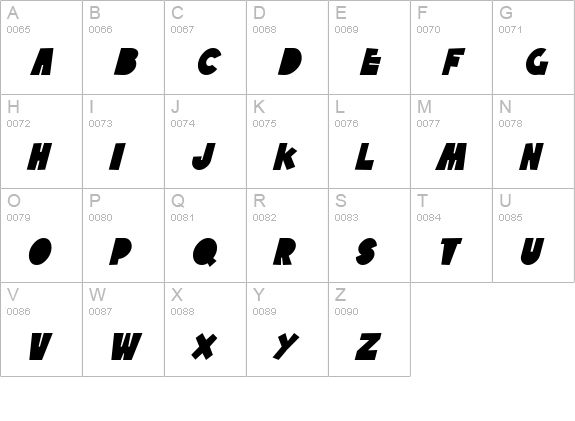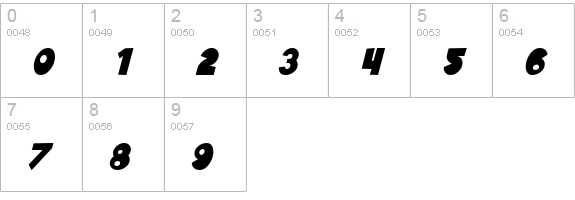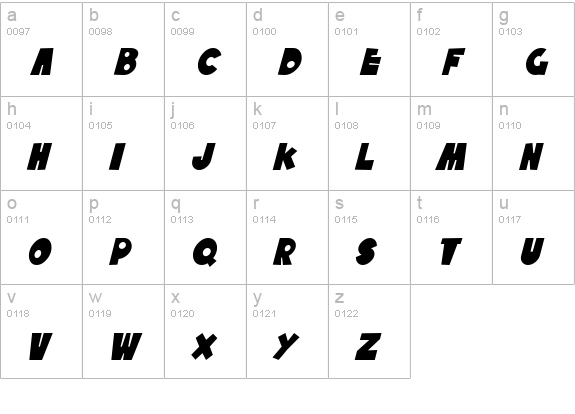
SF Tattle Tales Italic Font Details
SF Tattle Tales Italic is a distinctive, italic variant in the SF typeface family \xE2\x80\x94 well suited to design and typography projects.
Introducing SF Tattle Tales Italic font, the perfect blend of elegance and modernity. This beautiful typeface is designed to add a touch of sophistication to any project, capturing attention with its unique style and graceful curves. SF Tattle Tales Italic font is a versatile choice for a variety of design projects, whether you're creating eye-catching logos, stunning advertisements, or captivating editorial layouts. Its italicized form adds a dynamic and expressive touch to your typography, setting your message apart from the crowd. But what truly sets SF Tattle Tales Italic font apart is its accessibility. We believe that great design should be accessible to all, which is why we are thrilled to offer this remarkable font for free. Yes, you heard it right! SF Tattle Tales Italic font is freely available to download at FontsMarket.com, allowing you to elevate your design game without breaking the bank. With SF Tattle Tales Italic font, you have the freedom to unleash your creativity and make a lasting impression. Its sleek and stylish design is guaranteed to leave a mark, whether you're designing for print or digital mediums. So why wait? Download SF Tattle Tales Italic font today and unlock a world of possibilities. With its seamless integration into your creative projects, this font will effortlessly elevate your designs to new heights. Don't miss out on this incredible opportunity to access a premium font for free. Get your hands on SF Tattle Tales Italic font and let your imagination run wild.